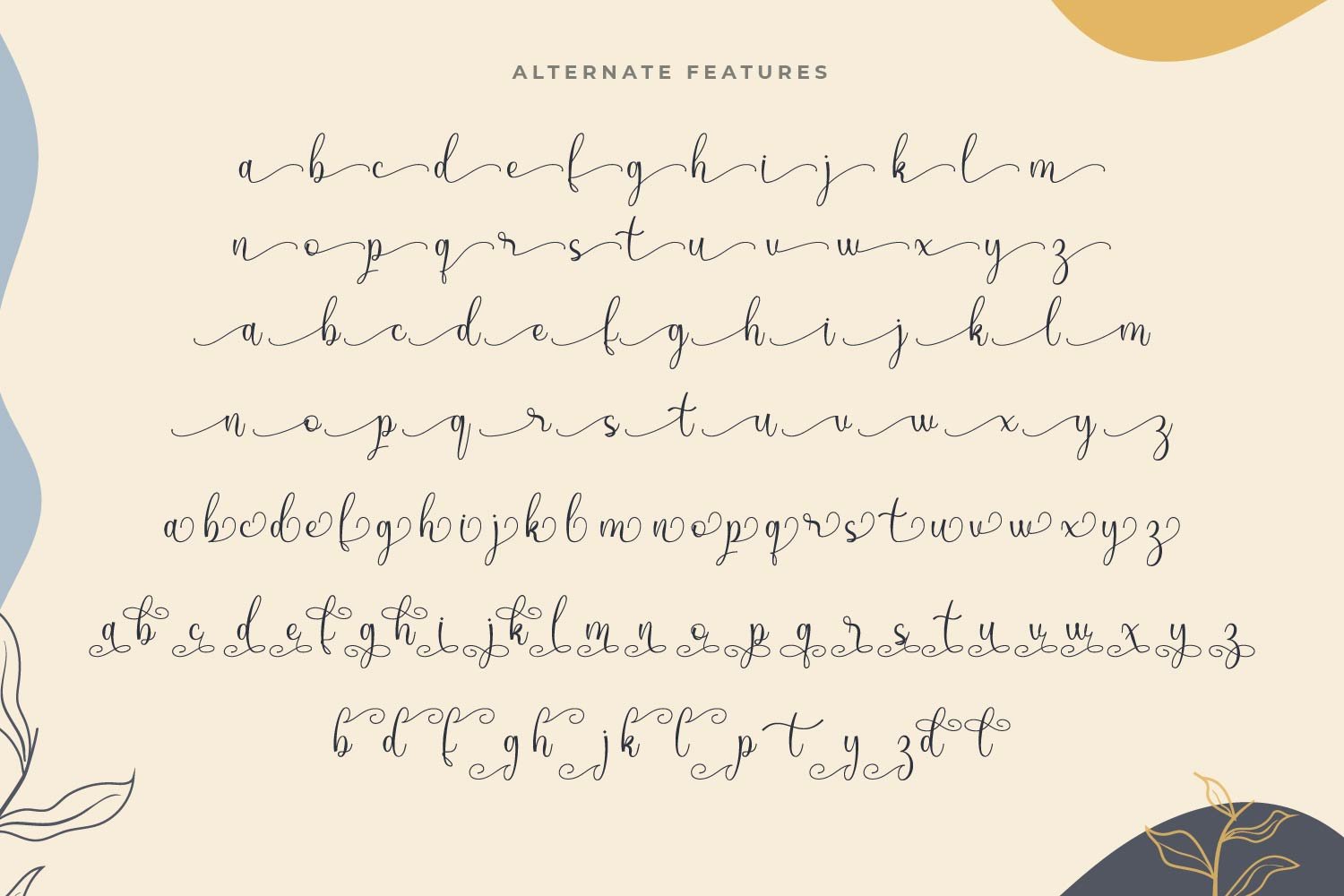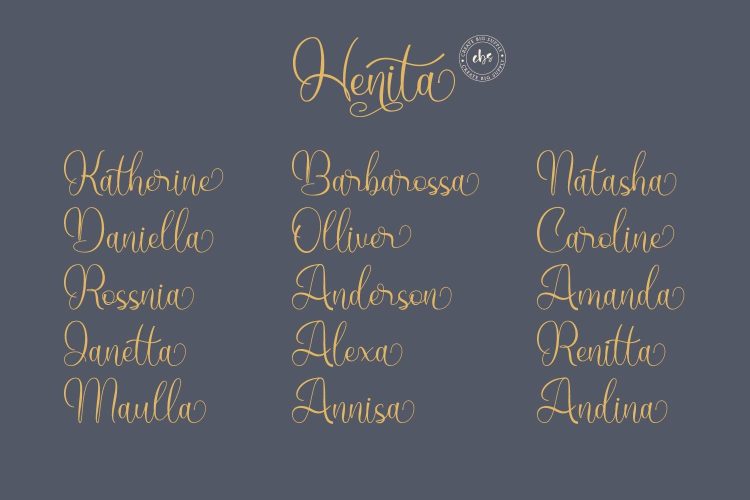
Henita is the perfect choice for projects that demand a touch of refinement. With its flowing lines and graceful curves, this elegant script font adds a timeless charm to your designs. Whether you’re creating wedding invitations, elegant branding materials, luxurious stationery, or any project that requires a touch of class, Henita will captivate your audience.
Experience the versatility of Henita with its meticulously designed uppercase and lowercase letters. Every character is crafted with precision to ensure seamless integration and create harmonious compositions that leave a lasting impression.
Enhance your typographic creativity with Henita’s comprehensive character set, which includes numbers, punctuation, and multilingual support. Communicate your message effectively in various languages and captivate a global audience.
Unlock the full potential of Henita with its PUA Encoding, offering access to special characters, ligatures, and alternates. Personalize your designs and create unique typographic expressions that reflect your artistic vision.